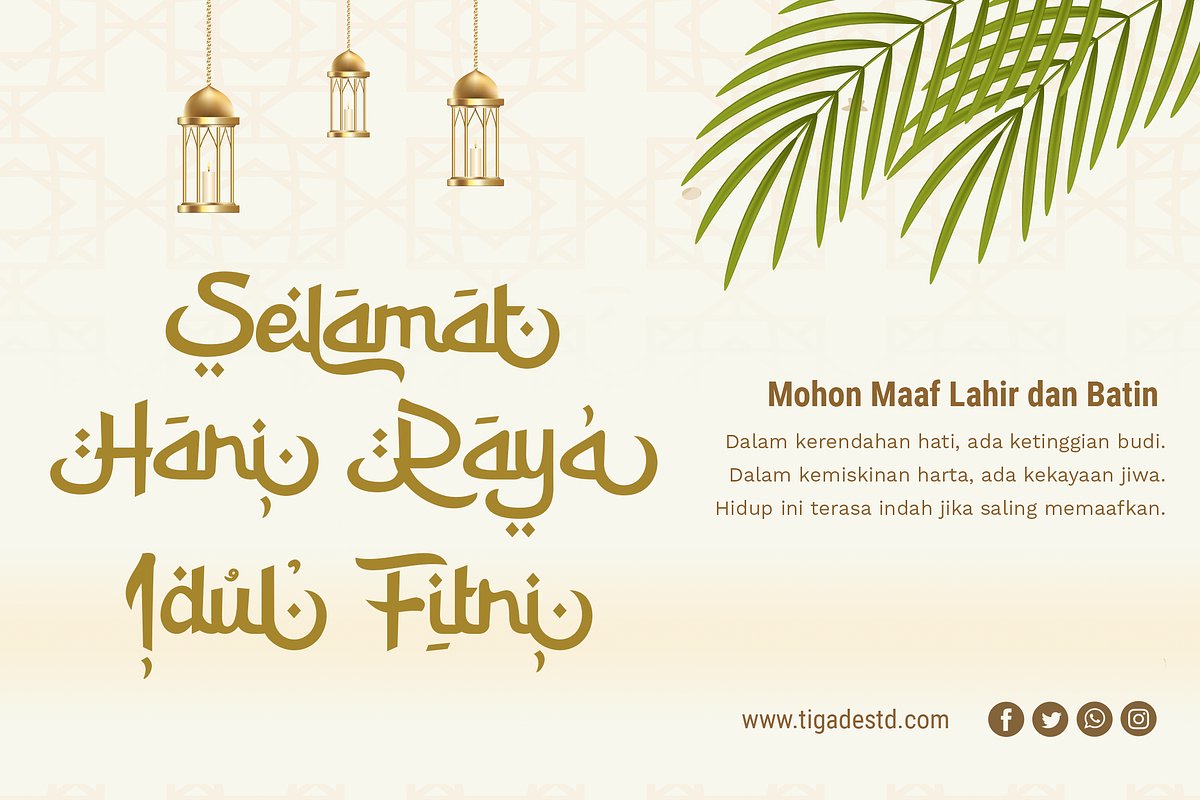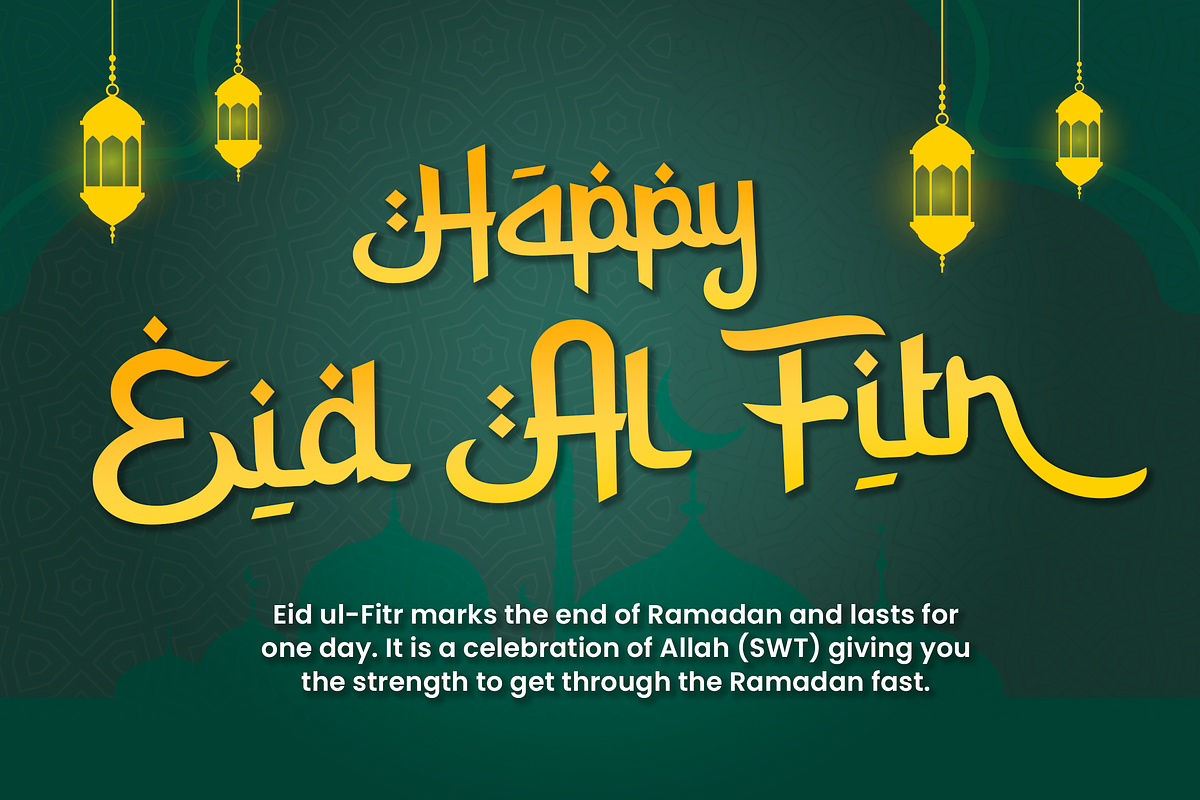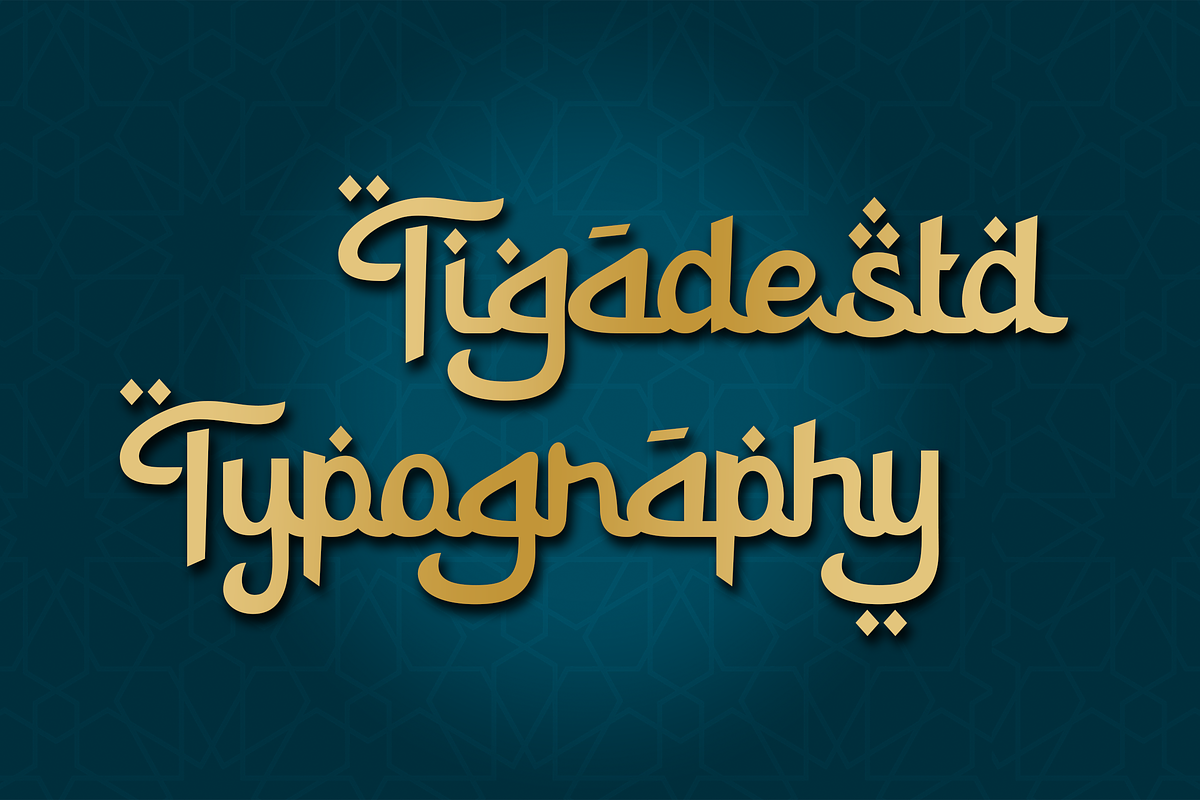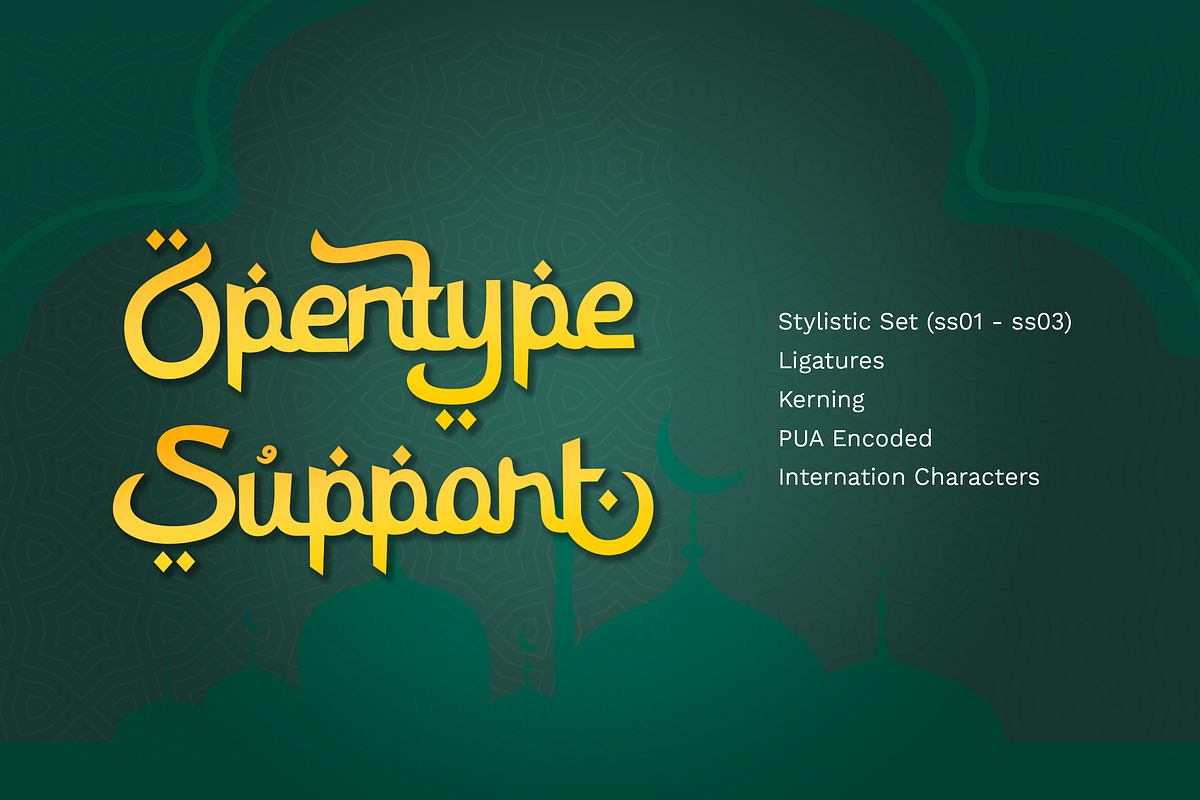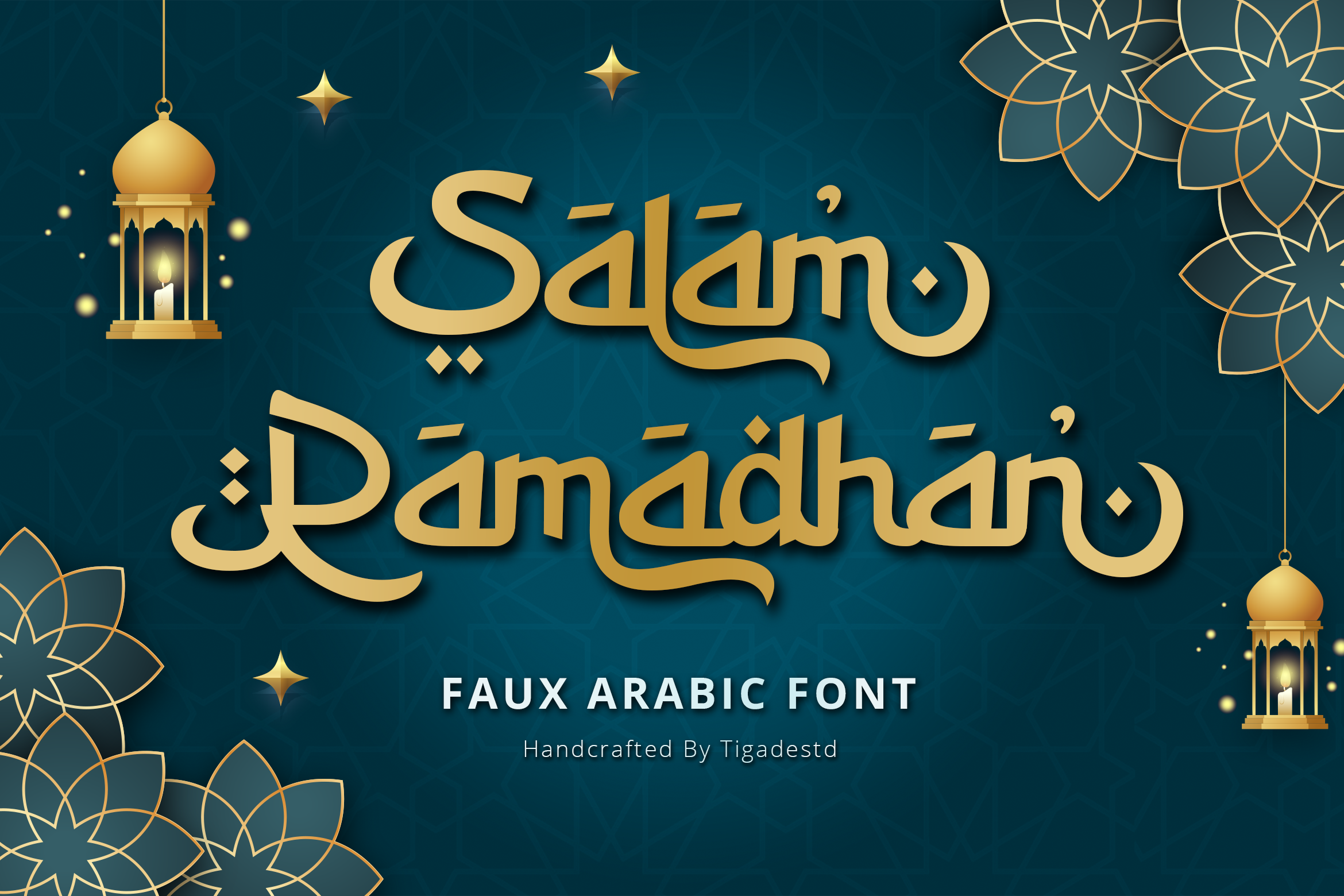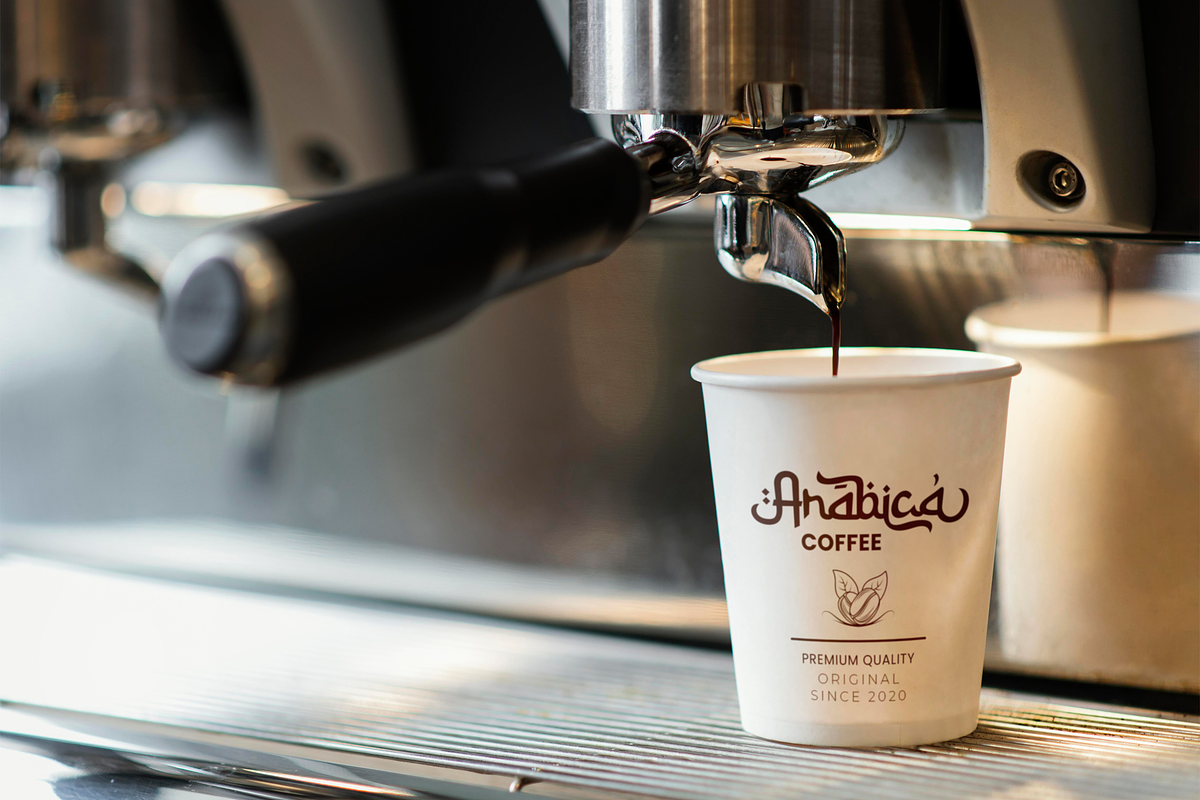
Salam Ramadhan | Arabic Style Font
Salam Ramadhan is an arabic style font. It is beautifully handcrafted to enhance your arabic or middle eastern design. In the coming soon Ramadhan month that is celebrated for Moslem around the world, you might want to equip your design with this beautiful font. It is simply boost your design to another level.
- Salam Ramadhan Regular • It contains upper & lowercase characters, all punctuation, numerals and various stylistic set.